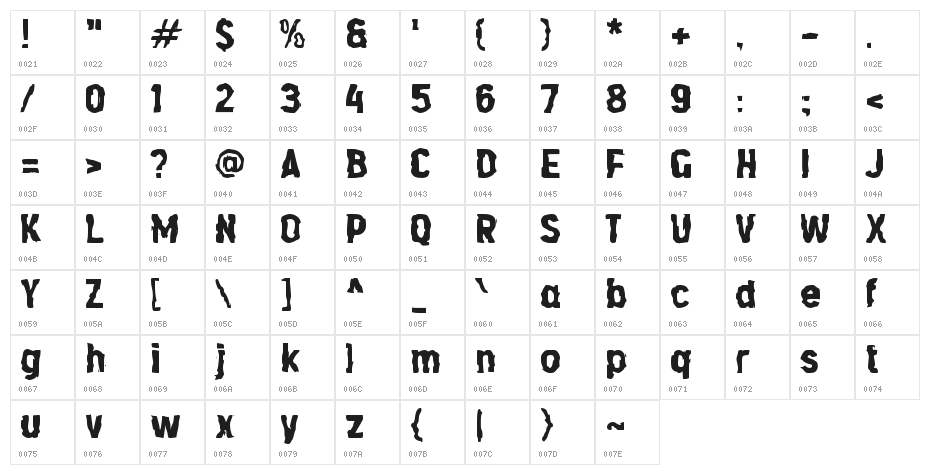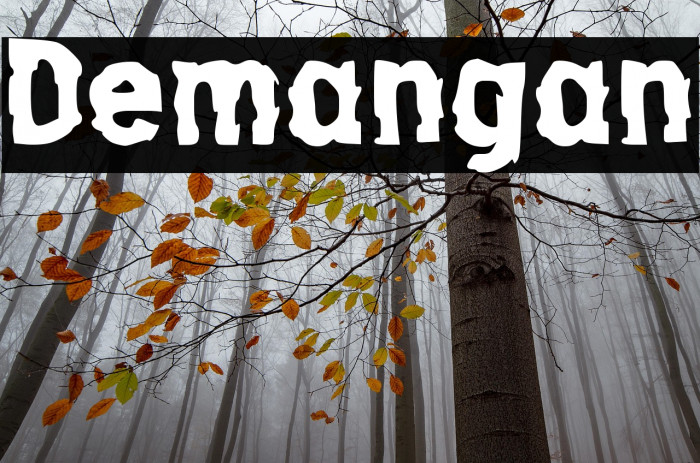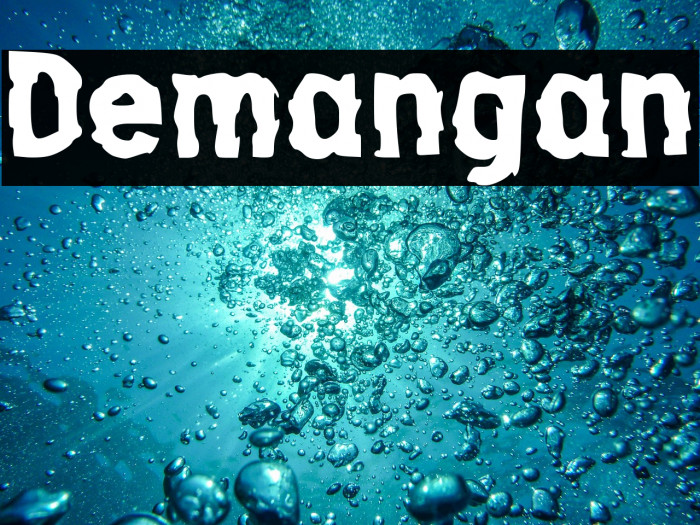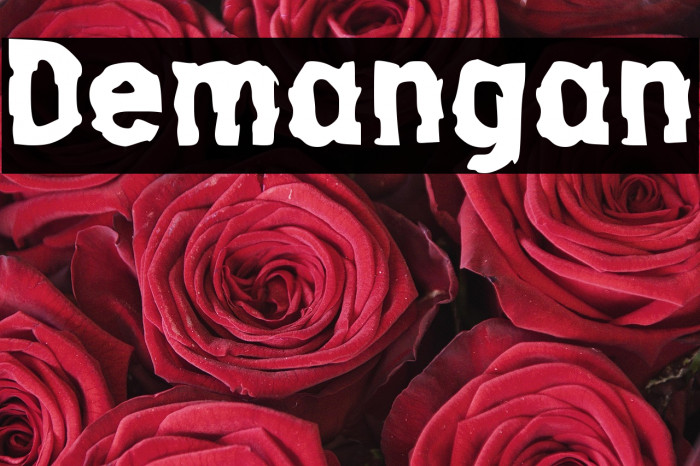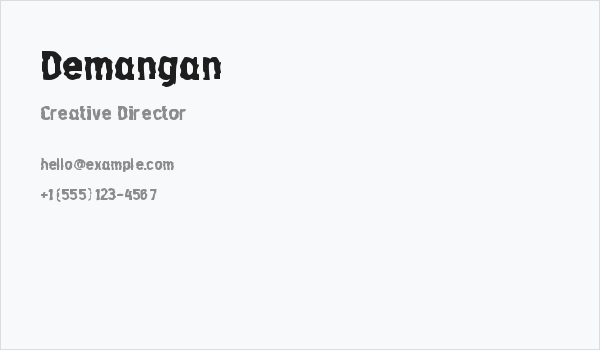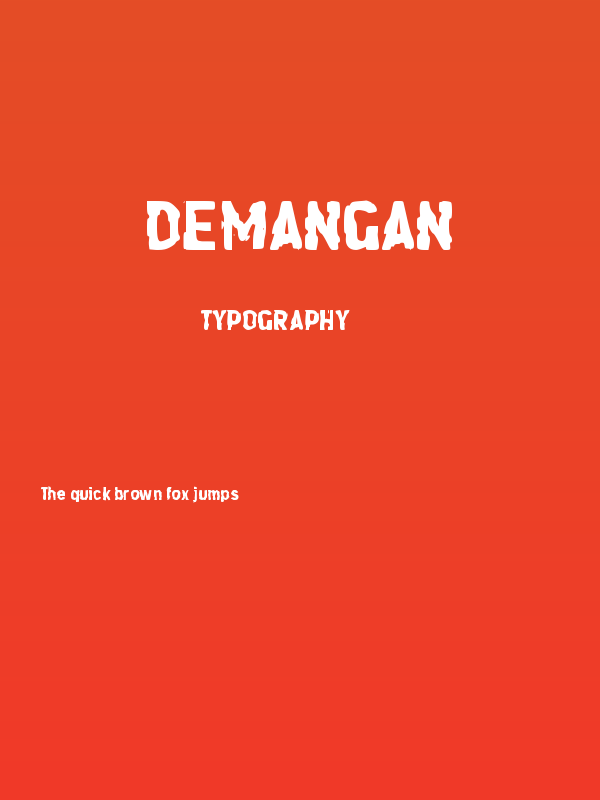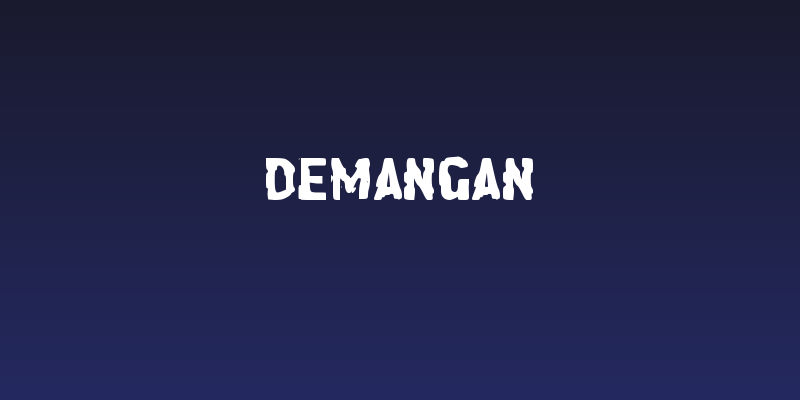
Demangan Font
Demangan Description
This font features a bold and rugged style with irregular edges and a hand-crafted appearance. The characters are thick and substantial, giving off a strong, impactful presence. The uppercase and lowercase letters maintain a consistent weight, while the numbers and special characters follow the same bold and uneven design. This font's unique, distressed look makes it stand out, adding a touch of personality and character to any project.
| Use Case | Logos, Posters, Artistic Designs |
| Proposed Projects | Ideal for projects that require a strong, impactful presence such as posters, logos, and branding materials. It can also be used for artistic designs, album covers, or any creative work that benefits from a bold, distinctive style. |